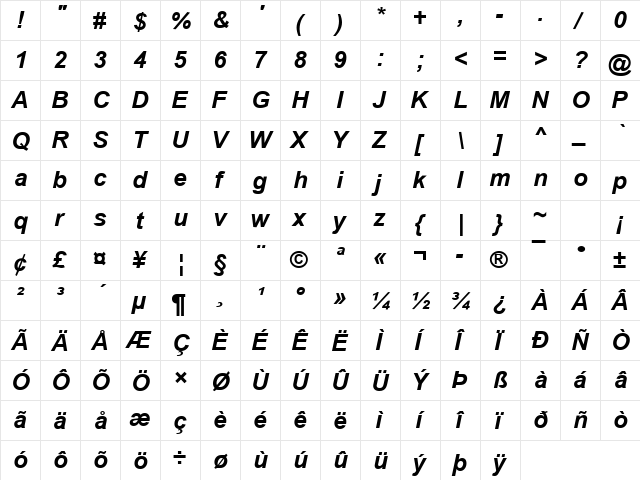
Communication39 Bold Italic Font Preview
Communication39 Bold Italic
Communication39 Bold Italic Font Details
Design Context for Communication39 Typeface
Communication39 is a composed and adaptable typeface that performs quietly and consistently across a wide range of design contexts. Its italic angle brings a sense of urgency and motion to the letterforms. Its bold stroke weight gives it real presence on the page.
Pro Tip: Try Communication39 for annotation and caption copy alongside an upright companion — the contrast in angle creates a dynamic but ordered typographic system.